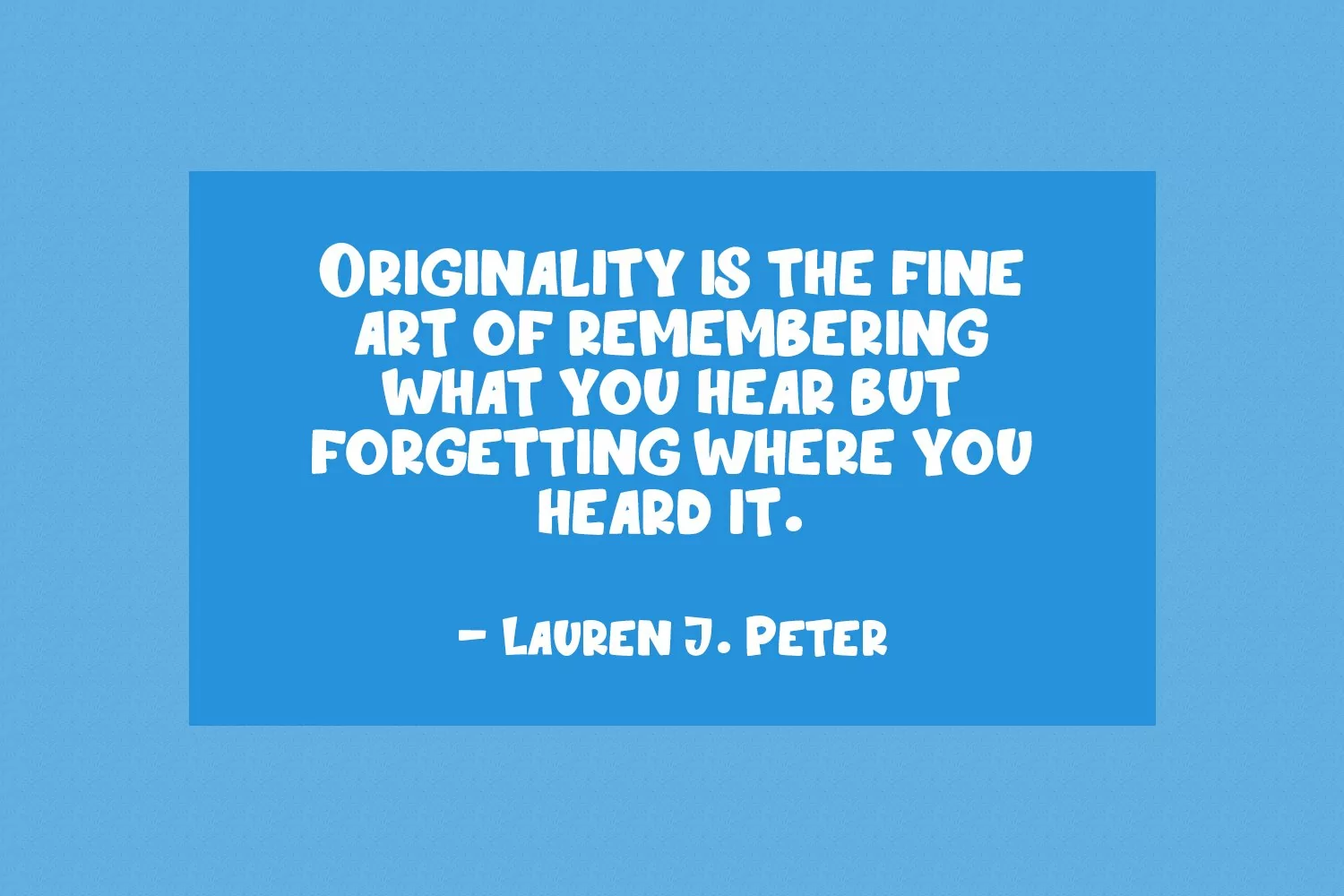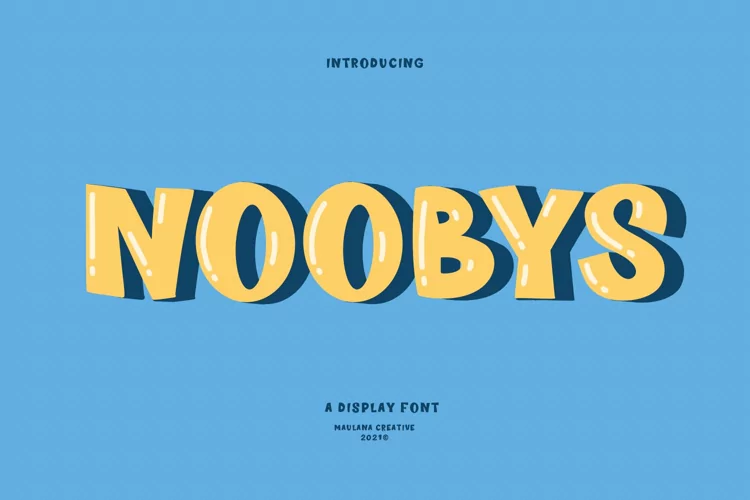
Noobys is a fun decorative display font with natural hand drawn, clean stroke, uprights and fun character. To give you an extra creative work. Noobys font support multilingual more than 100+ language. This font is good for logo design, Social media, Movie Titles, Books Titles, a short text even a long text letter and good for your secondary text font with sans or serif. Make a stunning work with Noobys font.
Noobys